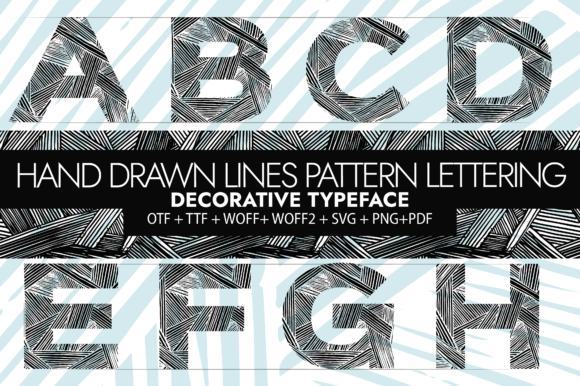
Unleash the beauty of your digital designs with Hand Drawn Ink Lines Font, the ultimate choice for captivating posters, striking headlines, and awe-inspiring titles. This unique decorative font, meticulously crafted by Minimalistartstudio, transcends the boundaries of ordinary typography, transforming your words into works of art.
Hand Drawn Ink Lines Font is not just a collection of characters; it's an expression of creativity, a celebration of individuality. Each letter, meticulously designed with intricate lines and subtle curves, carries a story, evoking emotions and capturing attention. It's a font that speaks to the heart and resonates with the soul, leaving an indelible mark on every design it graces.
With Hand Drawn Ink Lines Font, you have the power to transform the ordinary into the extraordinary. Let your imagination run wild as you create posters that demand attention, headlines that command respect, and titles that ignite curiosity. From sleek and modern designs to vintage and retro masterpieces, the possibilities are limitless.
Harness the allure of Hand Drawn Ink Lines Font and elevate your digital designs to new heights. Experience the joy of creating visuals that captivate, engage, and inspire. Embrace the beauty of Hand Drawn Ink Lines Font today and unlock the true potential of your creativity.